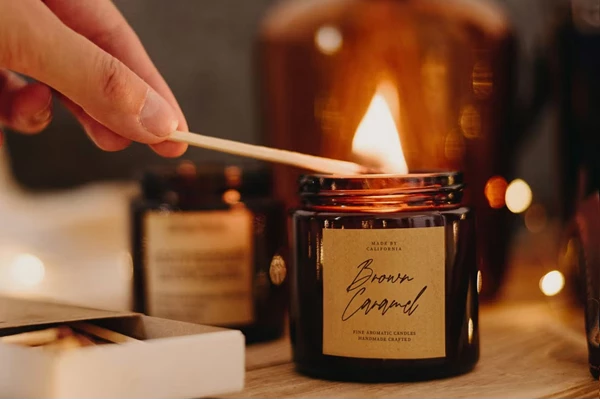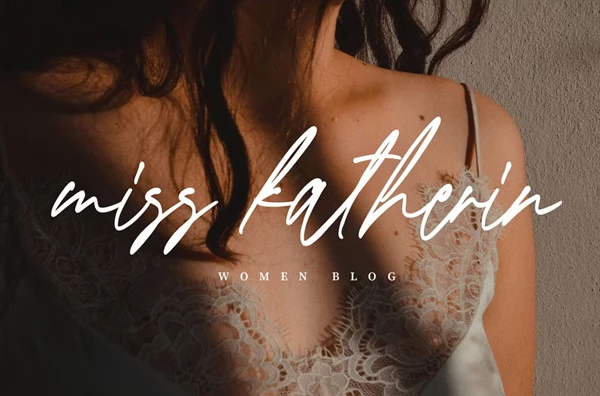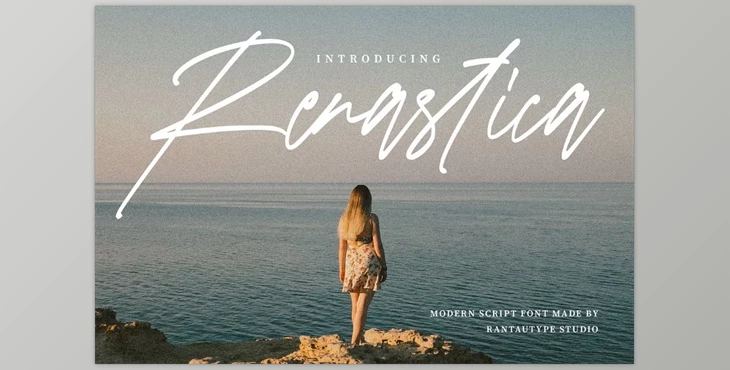
Renastica Modern Script Font:
Renastica is a modern handwritten font from Rantautype Studio made with love. It is a great option for your creative projects. It is suitable for use in logotypes, titles, and covers. It's great for branding purposes, invitations, wedding designs, magazine and social media uses, and more! Also, it's great for display use, advertisement, printed quotes, product packaging, and company branding projects. It's a modern typeface made great for product designs, product labels, photography, watermarks, and special events for an elegant and fashionable touch!
- Alternates, ligatures
Additionally, Renastica supports a variety of international characters across various languages, including but not limited to: Afrikaans, Albanian, Dutch, English, Finnish, French, German, Italian, Norwegian, Polish, Portuguese, Romanian, Spanish, Swedish, and more!